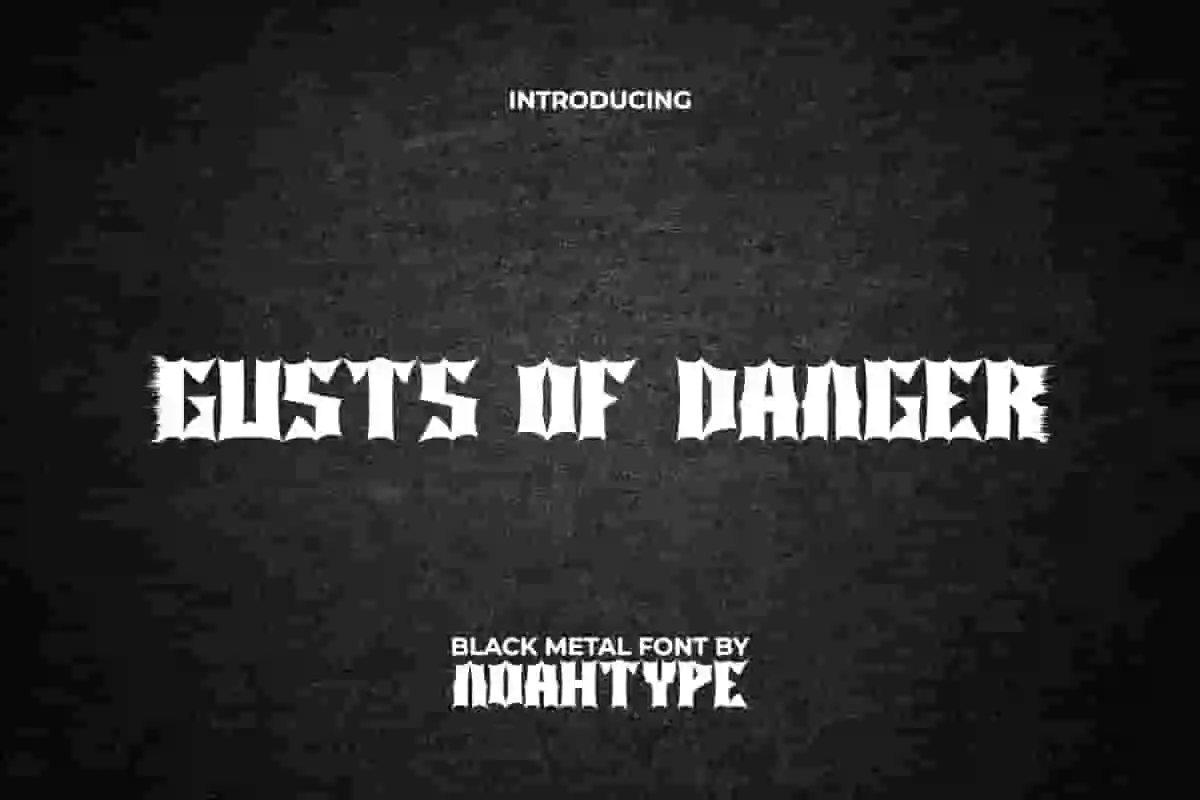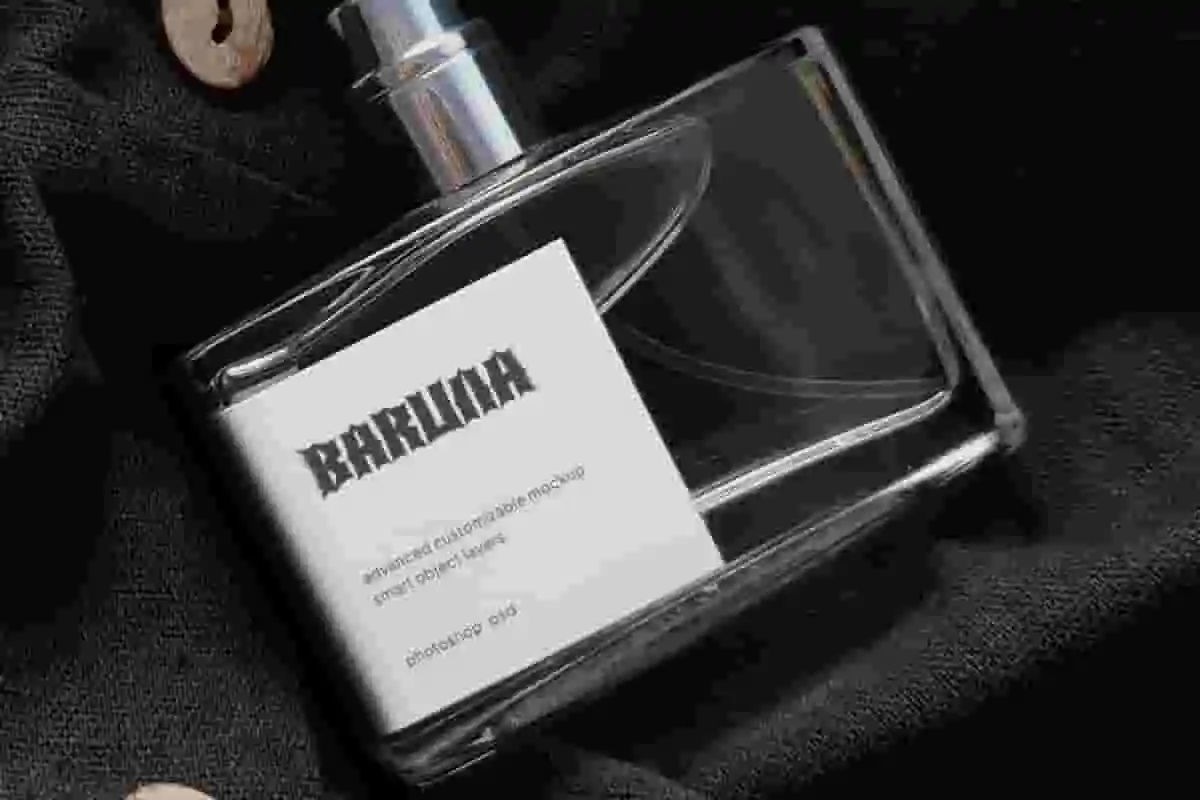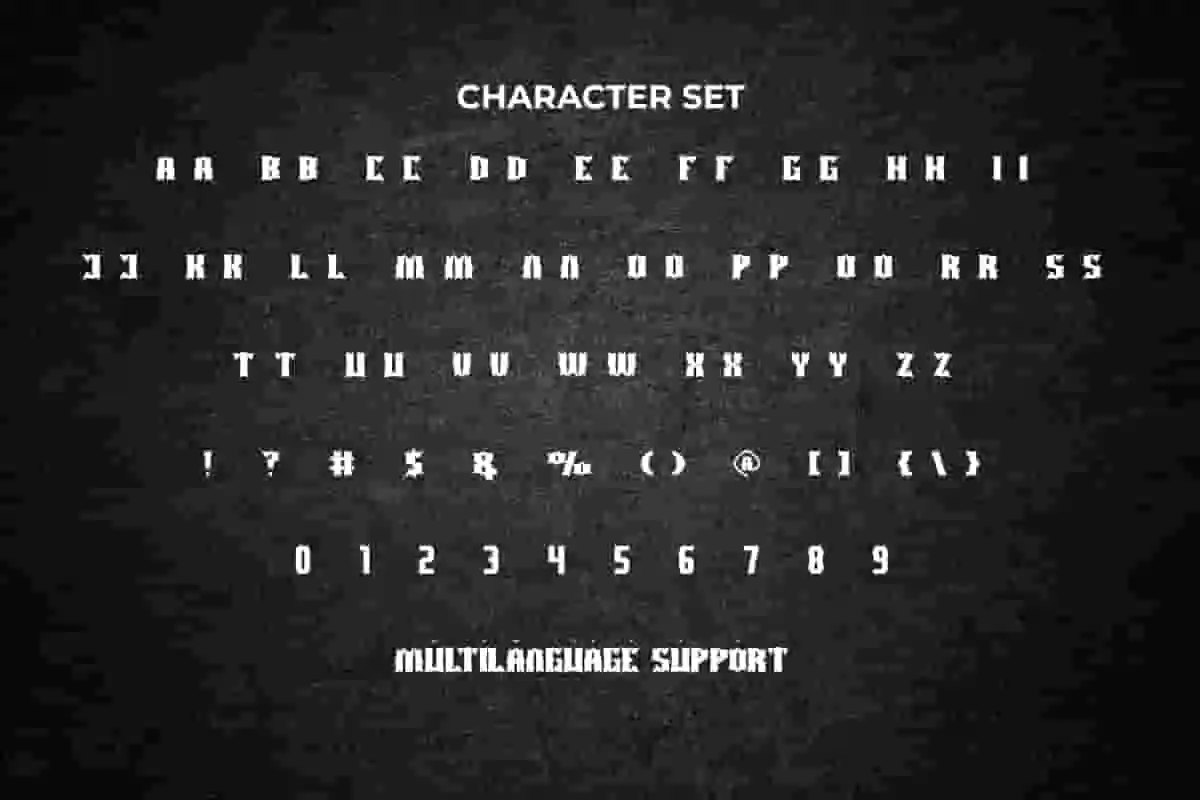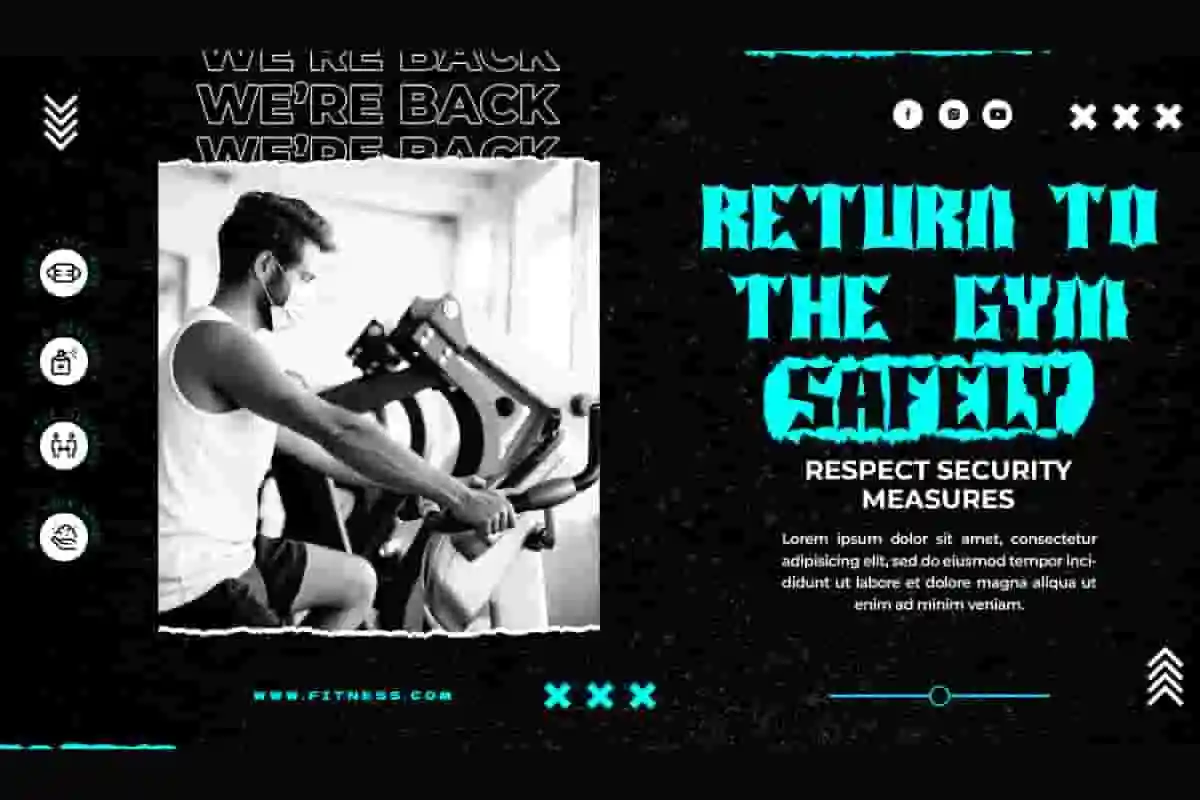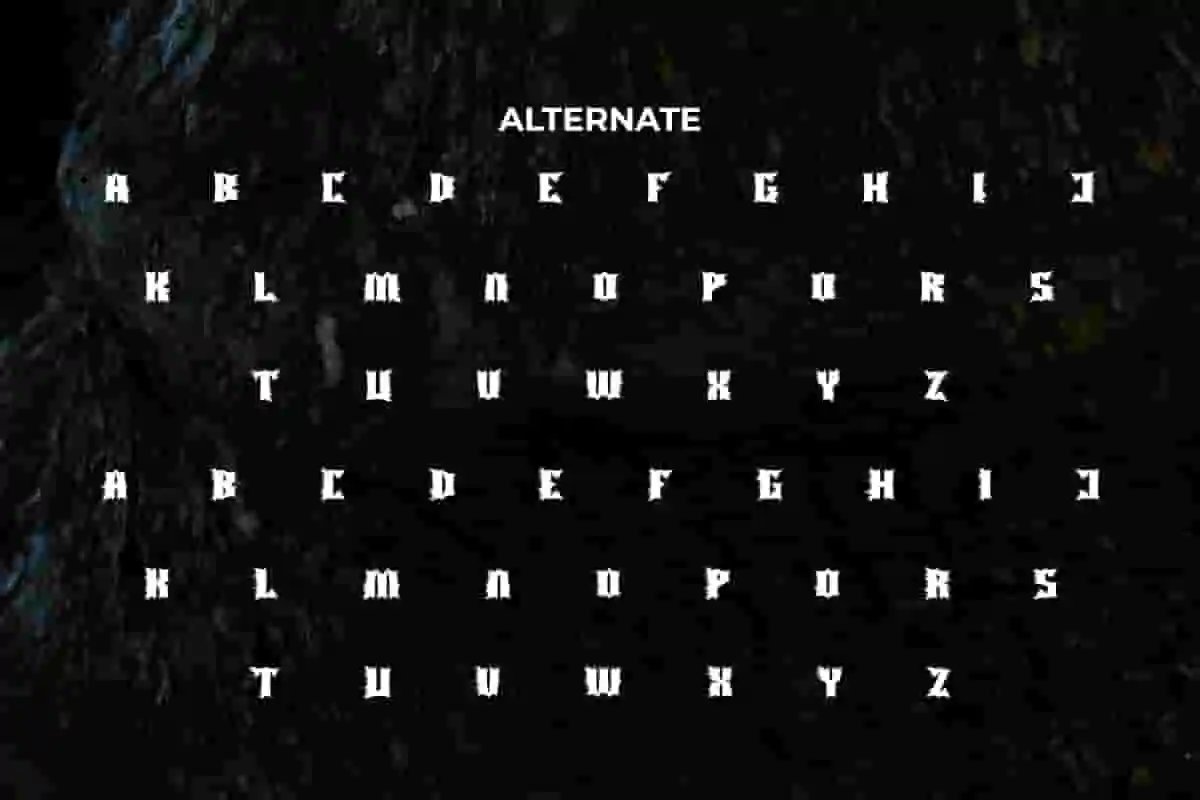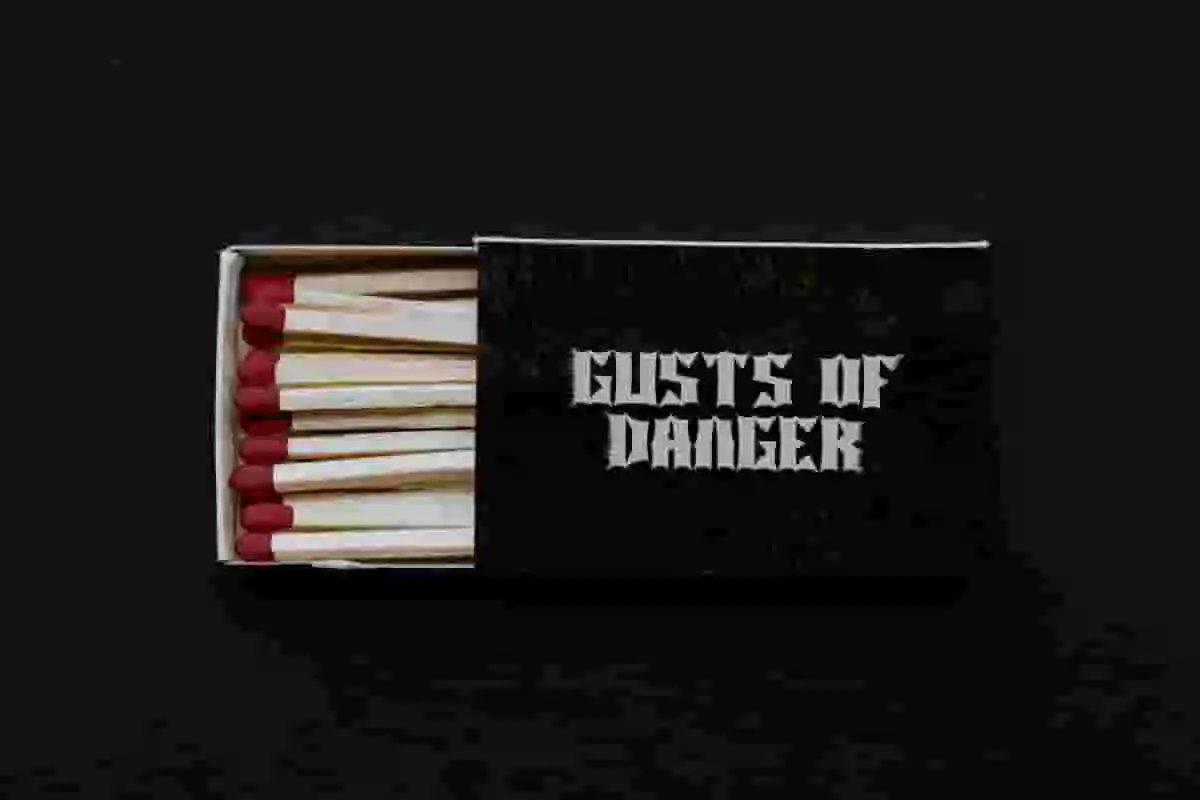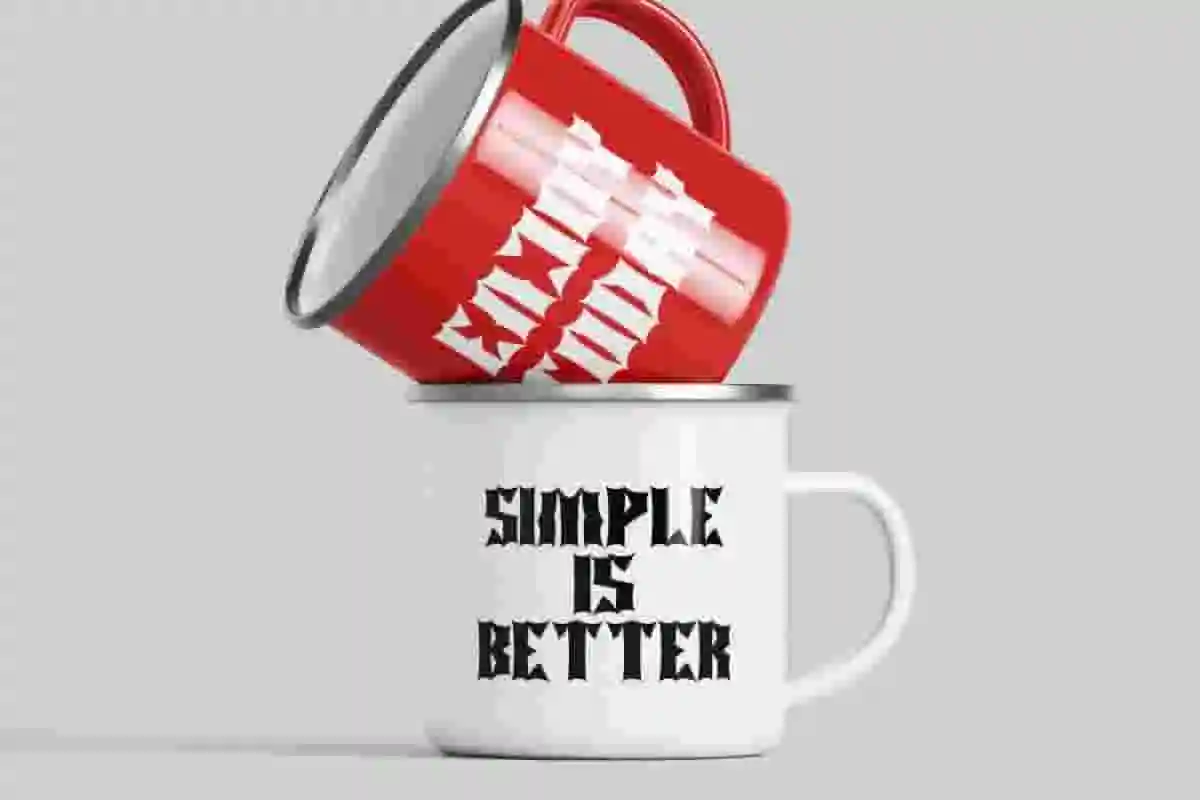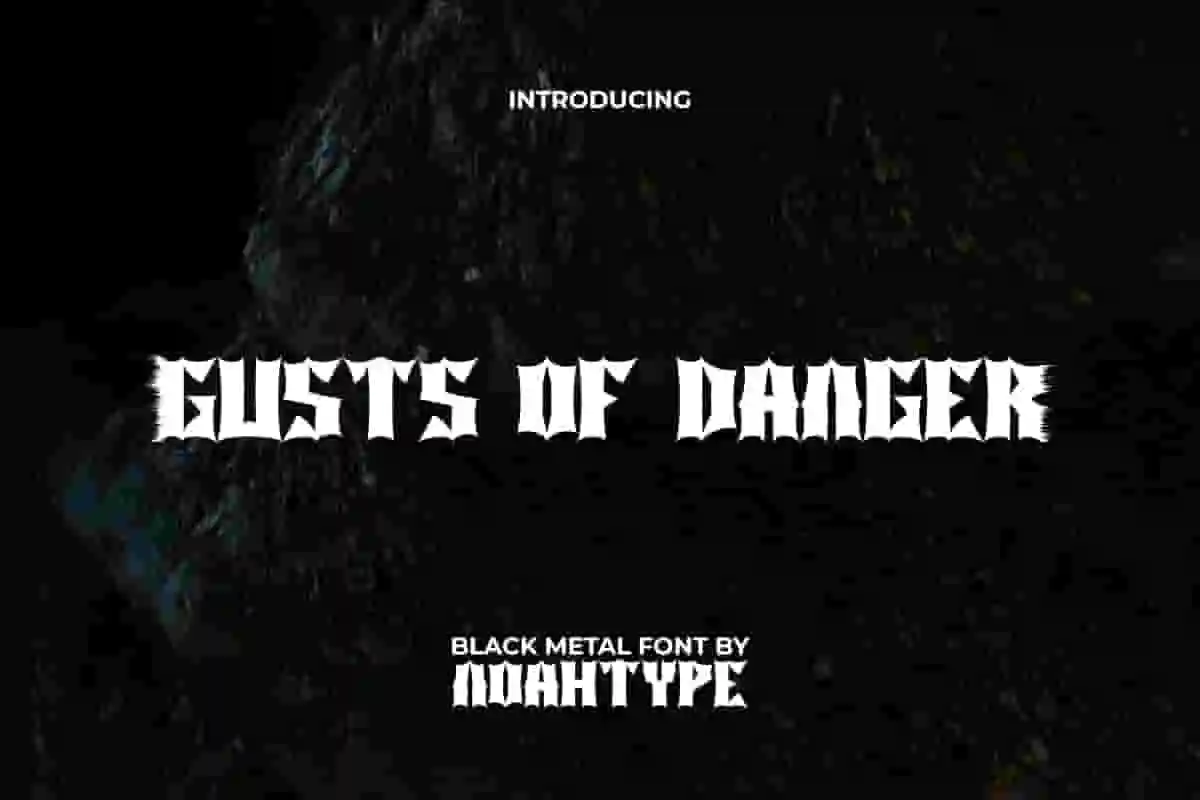
Gusts Of Danger Font is a medieval empire kingdom Black Metal font with a mysterious vibe by NoahType. This font has a strong dark aura that makes it look dominant in every design. It will be perfect for any designs, such as custom design, brand image, poster, label, invitation, cover, marketing material, menu, printing, product packaging, quotes, signage, website, and many more!
Gusts Of Danger Font includes full set of ALL CAPS for Uppercase and Lowercase Basic Characters, Numerals, Punctuation, Symbol, and Alternate character. This cool font will make your design amazing and also a perfect choice for many industries, such as game, movie, music, accessories, advertising, art, café, event or festival, fashion, printing, publishing, etc.